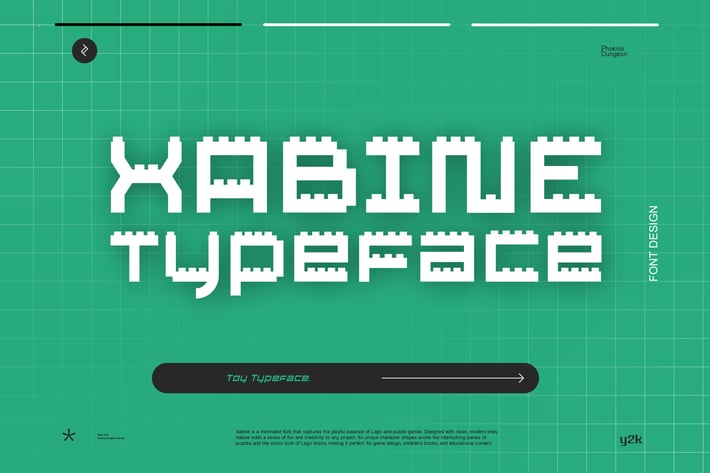
Xabine Font
Xabine is a minimalist font that captures the playful essence of Lego and puzzle games. Designed with clean, modern lines, Xabine adds a sense of fun and creativity to any project. Its unique character shapes evoke the interlocking pieces of puzzles and the iconic look of Lego bricks, making it perfect for game design, children's books, and educational content. Whether for branding or interactive interfaces, Xabine brings a lively and imaginative flair, ensuring your designs stand out with a touch of whimsy and excitement. Ideal for projects that aim to inspire and entertain, Xabine is the go-to font for a playful yet sophisticated aesthetic.